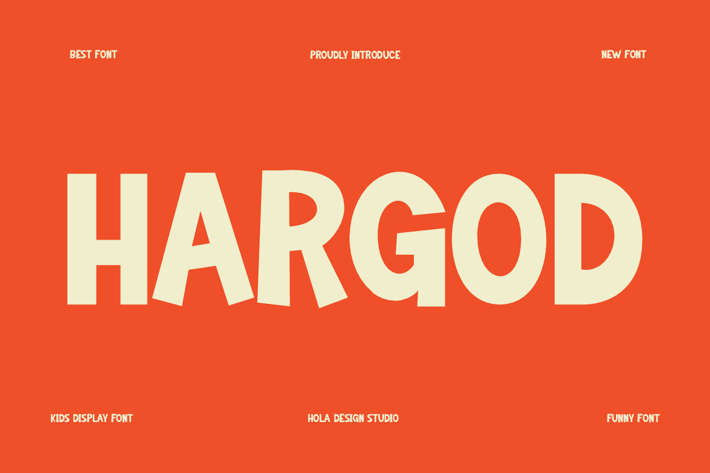
Hargod - Funny & Kids Font
Hargod - Funny & Kids Font is unique . Ready to use for your design like labeling, movie sceen, poster, movie title, gigs, album covers, logos, and much more.